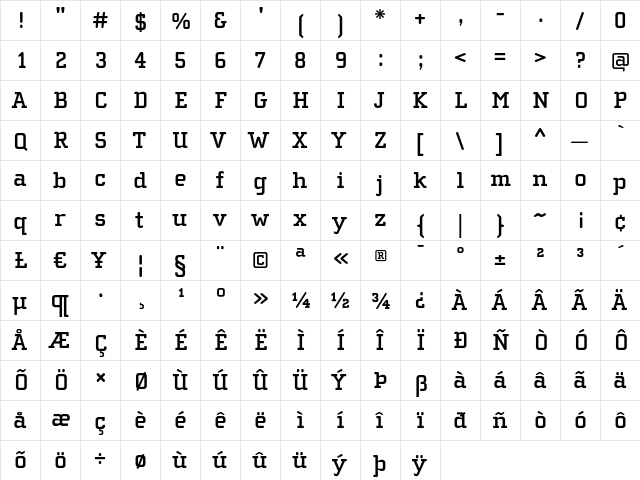
ChollaSlab Bold
Design Context for ChollaSlab Typeface
ChollaSlab features prominent, blocky serifs that give it a confident, grounded presence — equally at home in editorial settings and bold branding work. The heavy weight commands attention and anchors typographic hierarchies.
Works well in editorial design, news publishing, impactful branding, and poster typography.
Pro Tip: Try ChollaSlab set tight in headlines for a classic editorial feel. Its slab serifs create strong horizontal rhythm that anchors a page layout.